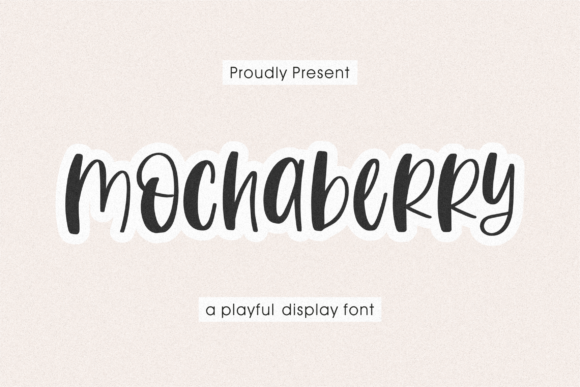
Step into the realm of interior design and immerse yourself in the whimsical world of Mochaberry Font, a handwritten masterpiece crafted by qwrtypefoundry. This enchanting script font dances with informality, exuding casual vibes that transform your creative visions into captivating realities.
Mochaberry Font is your perfect companion for projects seeking a relaxed touch. Its simple yet quirky personality effortlessly complements invitations, branding, and social media posts, adding a dash of charm to every design. The adaptable nature of this font allows it to seamlessly blend with various styles, making it a versatile choice for both personal and professional endeavors.
With Mochaberry Font as your design partner, you'll embark on a journey of artistic expression, capturing the essence of comfort and ease. Embrace the playful spirit of this font, let your creativity flow, and unleash a symphony of visual delight.
- Simple, Quirky, and Adaptable: Mochaberry Font embodies simplicity, adding a touch of whimsy to your designs. Its adaptability shines through its seamless integration with diverse styles, making it a versatile choice for all your creative endeavors.
- Casual Vibe for Relaxed Creations: Infuse your designs with a relaxed atmosphere using Mochaberry Font. Its casual vibe effortlessly creates a sense of ease and comfort, making it ideal for invitations, branding, and social media posts that aim to connect with audiences on a personal level.
- Perfect for Interior Design: Unleash your inner designer and transform your interior spaces with Mochaberry Font. This font's unique charm adds a touch of elegance and warmth to any décor, making it the perfect choice for creating captivating signage, wall art, and personalized home décor items.